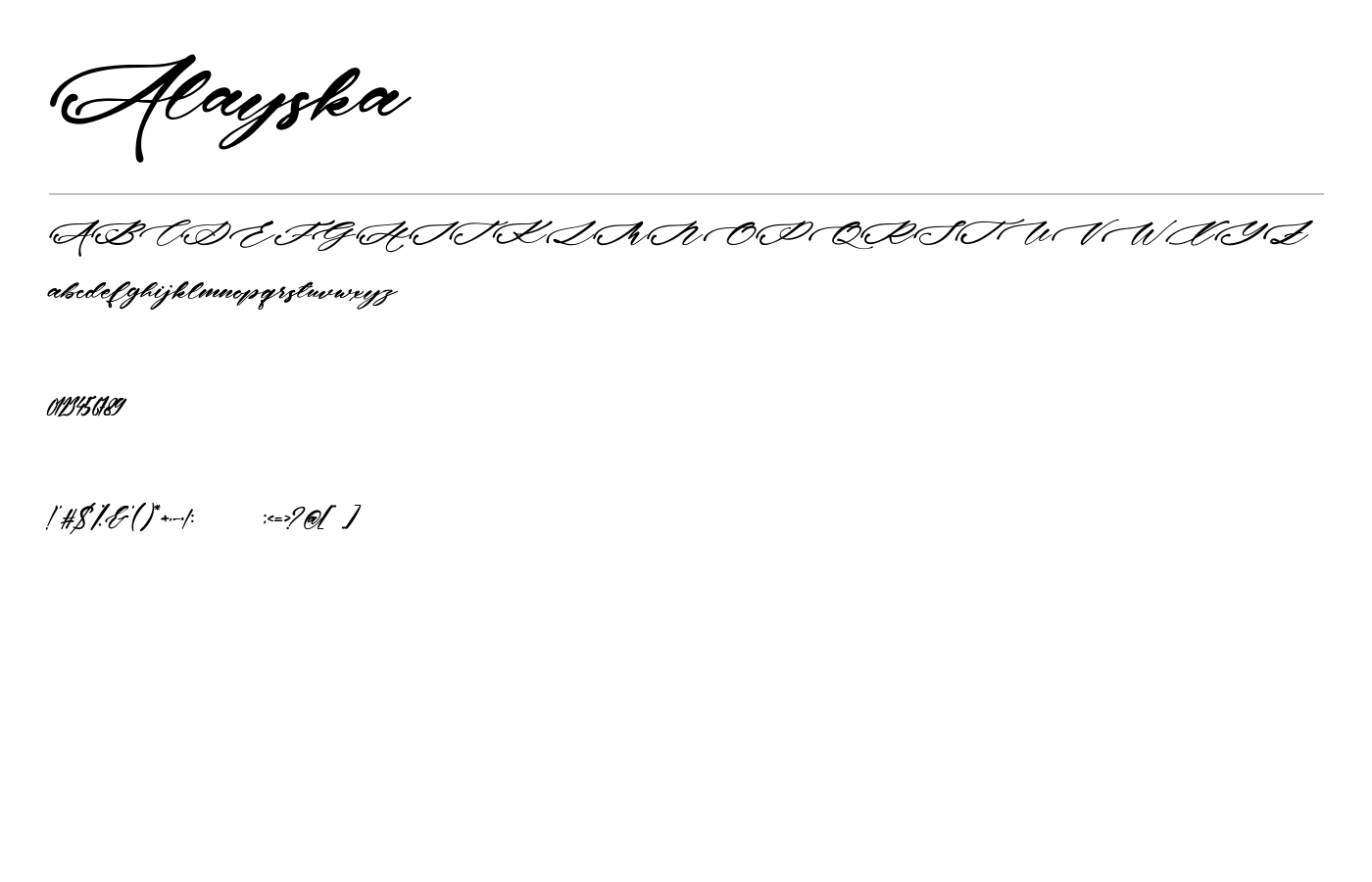
Alayska is a stylish script font characterized by elegant, flowing strokes and a handwritten feel. Its high contrast and smooth curves create a sophisticated and graceful appearance, making it ideal for invitations, branding, and any design that seeks a refined, personalized touch. This font shines in creative projects where a classic yet modern script vibe is desired.
Alayska Font
About Alayska Font
| Font family | Alayska Font |
| Designer | Pineungtype |